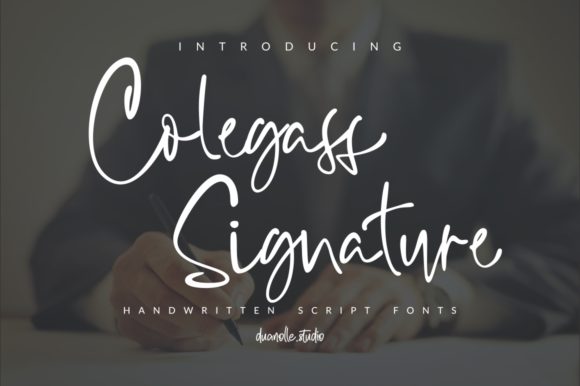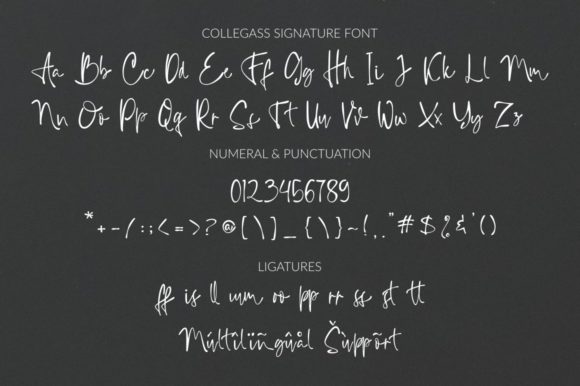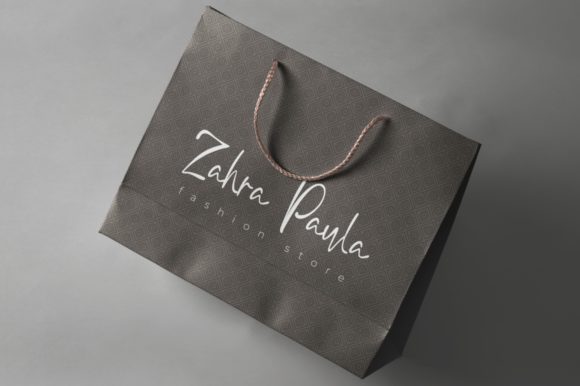
Collegass Signature Font
About Collegass Signature Font
Collegass Signature is a stylish and modern font with a chic casual flair. Featuring a charming handwritten style, this font will look perfect on wedding invitations and cards, letters and much more.